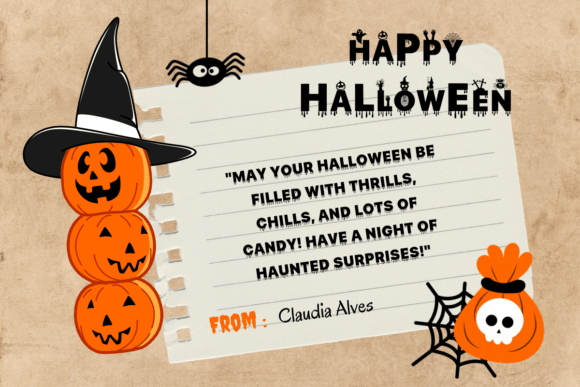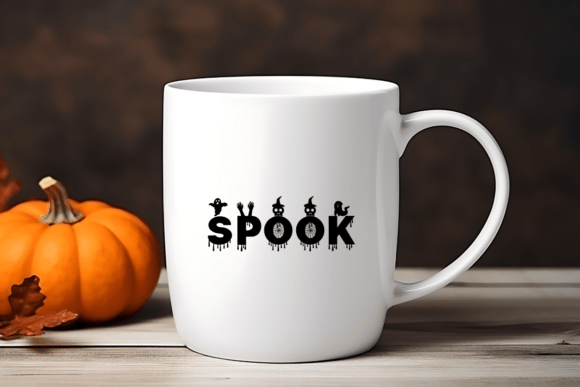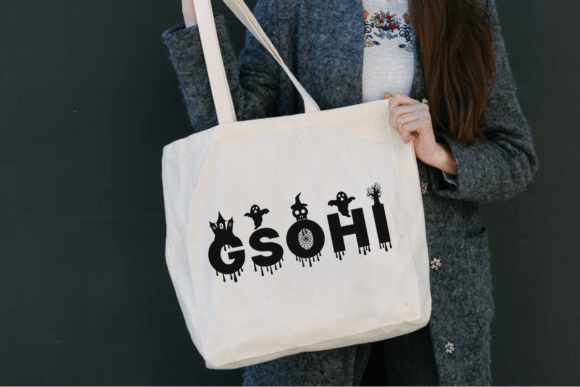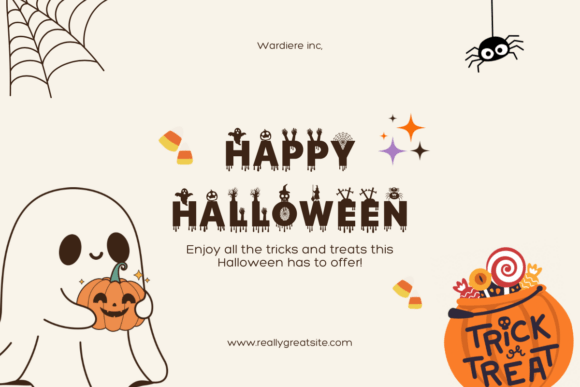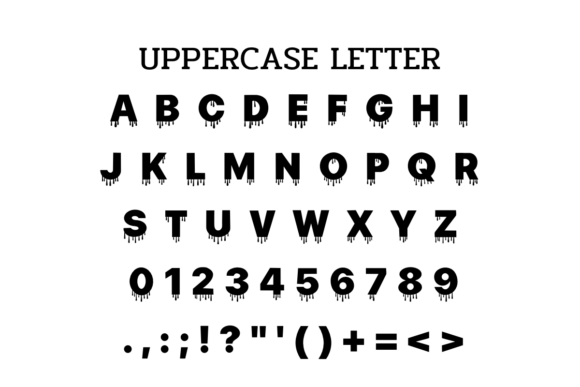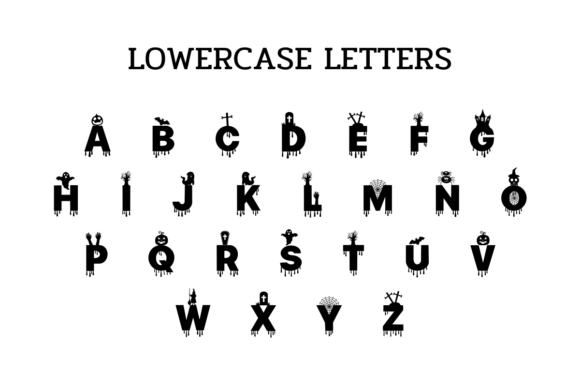
Unleash the Spookiness: Introducing the Halloween Magic Font
Are you ready to add a dash of magic to your horror-themed projects? Look no further than the Halloween Magic Font, a cool and spooky decorative font that’s sure to cast a spell on your audience. In this article, we’ll dive into the world of Halloween Magic, exploring its features, uses, and benefits for designers and crafters.
What is Halloween Magic Font?
Halloween Magic Font is a unique and captivating typeface designed to evoke the eerie and mystical atmosphere of Halloween. With its twisted, curved, and spellbinding letters, this font is perfect for creating eye-catching titles, headings, and text elements that will leave a lasting impression on your audience.
Features of Halloween Magic Font
- Spine-tingling design: Each letter in the Halloween Magic Font is carefully crafted to resemble the spooky and mystical elements of Halloween, making it an ideal choice for horror-themed projects.
- High-quality design: The font is designed with precision and attention to detail, ensuring that it looks great in various sizes and resolutions.
- Multilingual support: The font supports multiple languages, allowing you to create content for a global audience.
Uses of Halloween Magic Font
The Halloween Magic Font is versatile and can be used in a variety of projects, including:
- Halloween-themed designs: Create spooky posters, flyers, and invitations that will set the tone for a howling good time.
- Horror movie and TV show promotions: Use the font to create eye-catching titles and taglines for horror movies and TV shows.
- Haunted house and attraction marketing: Add a touch of magic to your haunted house or attraction marketing materials, including brochures, posters, and social media graphics.
- Crafting and DIY projects: Use the font to create spooky and fun crafting and DIY projects, such as Halloween cards, gift tags, and decorations.
Benefits of Using Halloween Magic Font
By incorporating the Halloween Magic Font into your projects, you’ll enjoy several benefits, including:
- Instant recognition: The font’s unique design will immediately convey the spooky and mystical atmosphere of Halloween, grabbing the attention of your audience.
- Professional look: The high-quality design of the font will give your projects a professional and polished look, elevating your brand and reputation.
- Time-saving: With the font’s ease of use and compatibility with various design software, you’ll save time and effort in creating your projects.
- Endless creative possibilities: The Halloween Magic Font will inspire you to create unique and captivating projects that will leave a lasting impression on your audience.
Tips for Using Halloween Magic Font
To get the most out of the Halloween Magic Font, follow these tips:
- Experiment with colors: Use bold and vibrant colors to enhance the font’s spooky and mystical atmosphere.
- Mix and match: Combine the Halloween Magic Font with other fonts and design elements to create a unique and captivating visual style.
- Pay attention to spacing: Adjust the spacing between letters and words to create a sense of eeriness and mystery.
- Have fun: Don’t be afraid to get creative and experiment with different design ideas and concepts.